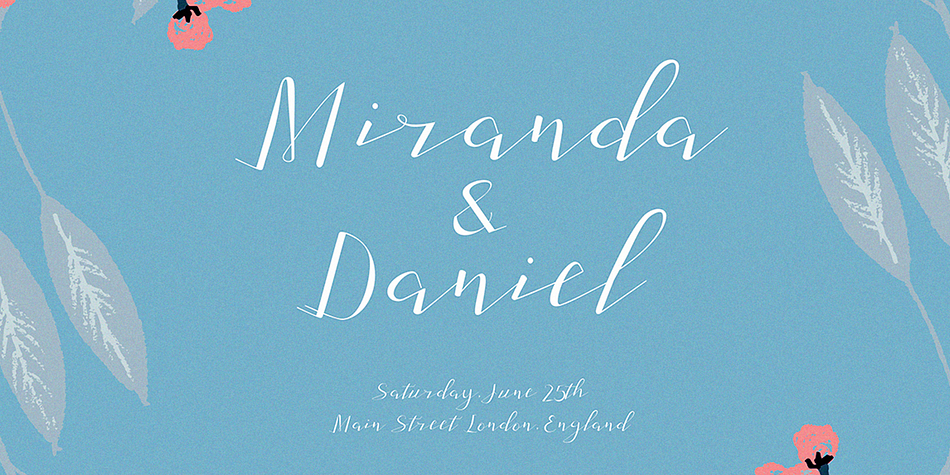
Adamenya
Adamenya is a modern calligraphy font published by Area Type Studio.
Adamenya Script is a modern calligraphy font with unique character, irregular baseline, and girly.
Those all will make you work easily to create: Wedding invitation, Posters, Logos, Print, Quotes, Headers etc Features: Uppercase -Lowercase -Numerals -Basic punctuations Available in OTF and TTF formats.
Displaying the beauty and characteristics of the Adamenya font family.
Highlighting the Adamenya font family.
Adamenya Script is a modern calligraphy font with unique character, irregular baseline, and girly. Those all will make you work easily to create: Wedding invitation, Posters, Logos, Print, Quotes, Headers etc Features: Uppercase -Lowercase -Numerals -Basic punctuations Available in OTF and TTF formats. Thanks!!!